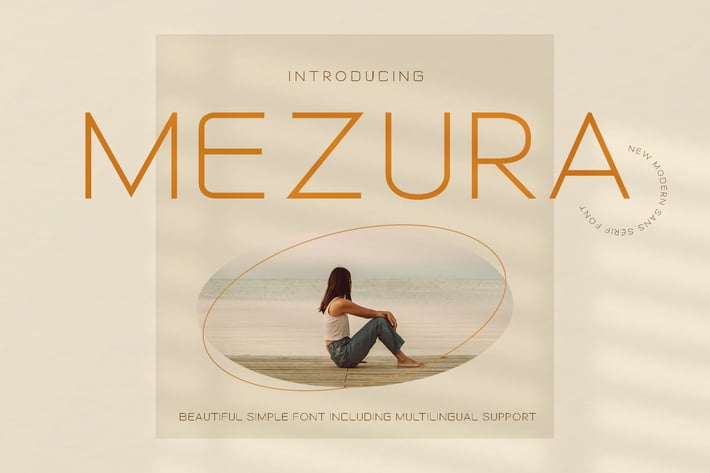
Mezura Advertisement Font
Mezura is simple and eelgant advertisement font. It can easily be matched to an incredibly large set of projects like logo, package, advertisement, magazine, , so add it to your creative ideas and notice how it makes them stand out!